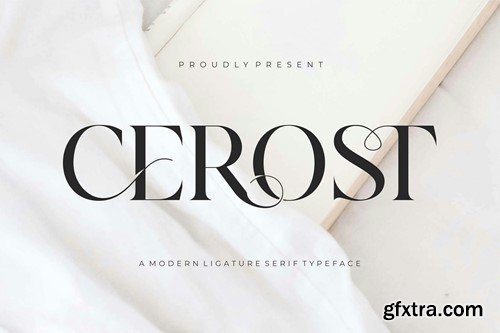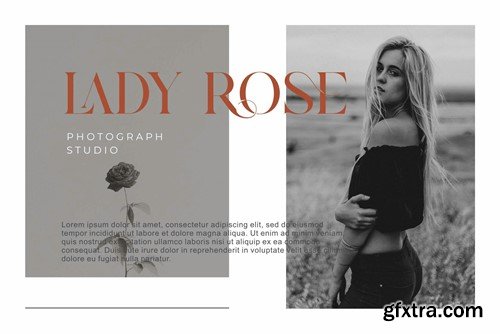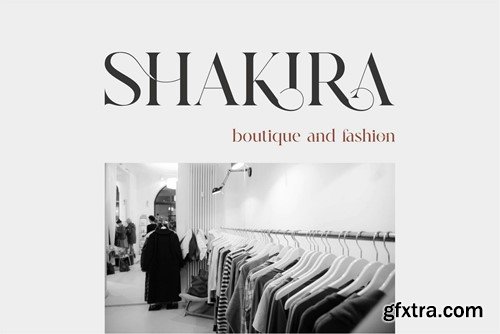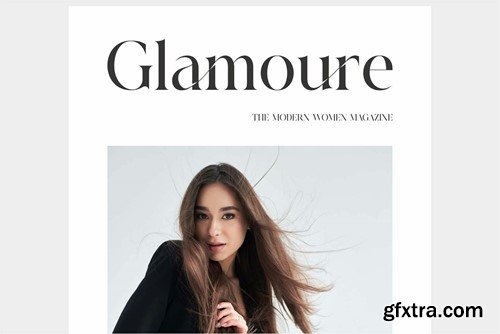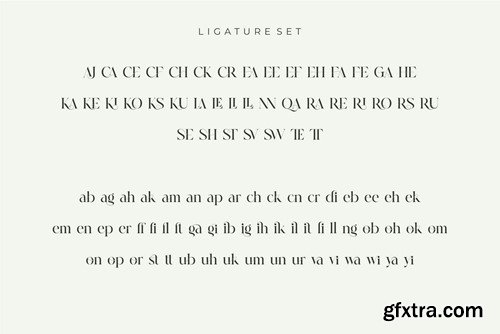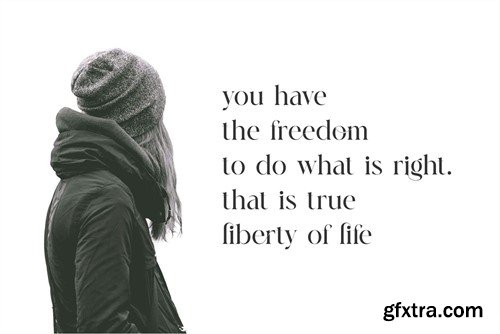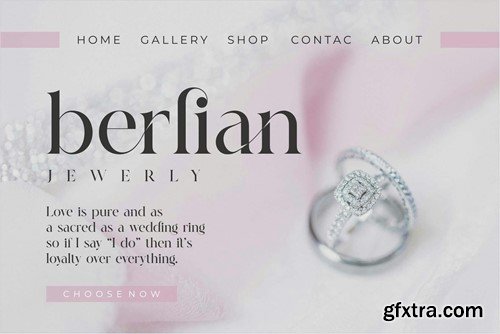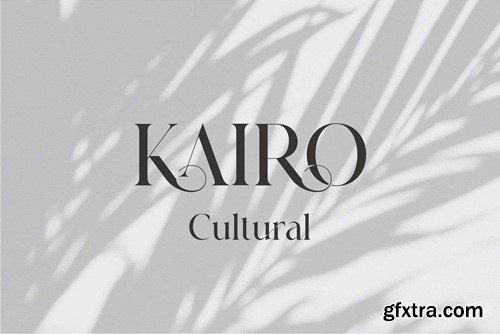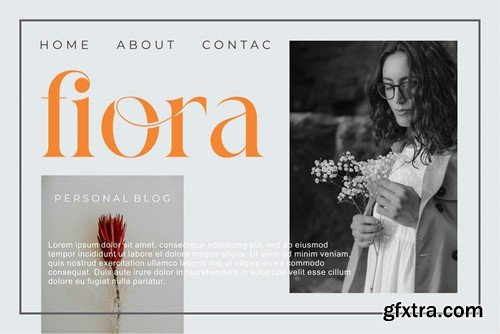
Cerost Modern Ligature Typeface HLNZ8Q2
Cerost is a unique and very elegant font for branding and logo designs. An elegant serif typeface that has many ligature features combined with a classy and modern calligraphy style. This font is very suitable to be combined with an elegant design and combined with the currently trending color, namely Crimson Chery, as I show. This type of font is very suitable for your various needs such as branding projects, logos, wedding designs, social media posts, advertisements, product packaging, product designs, labels, photography, watermarks, invitations, stationery, and any project, created at a high level. high readability. You will not be disappointed if you buy this font!! What's Included: Recommended using Adobe Illustrator or Adobe Photoshop. Wish you enjoy our font and if you have any questions, don't hesitate to drop a message & I'm happy to help :)